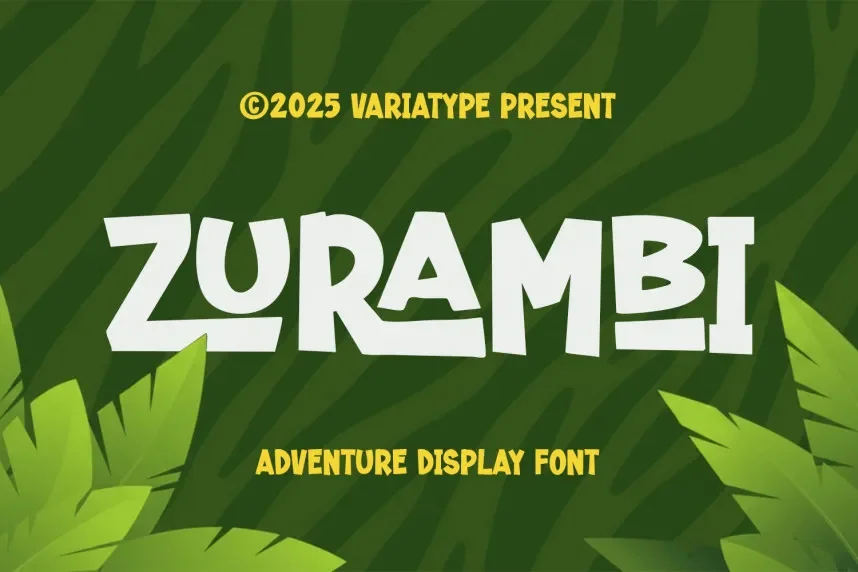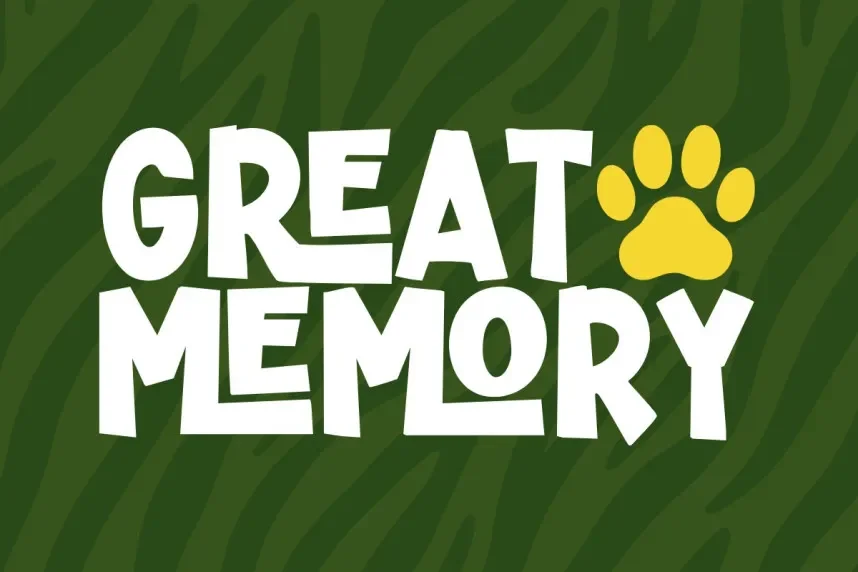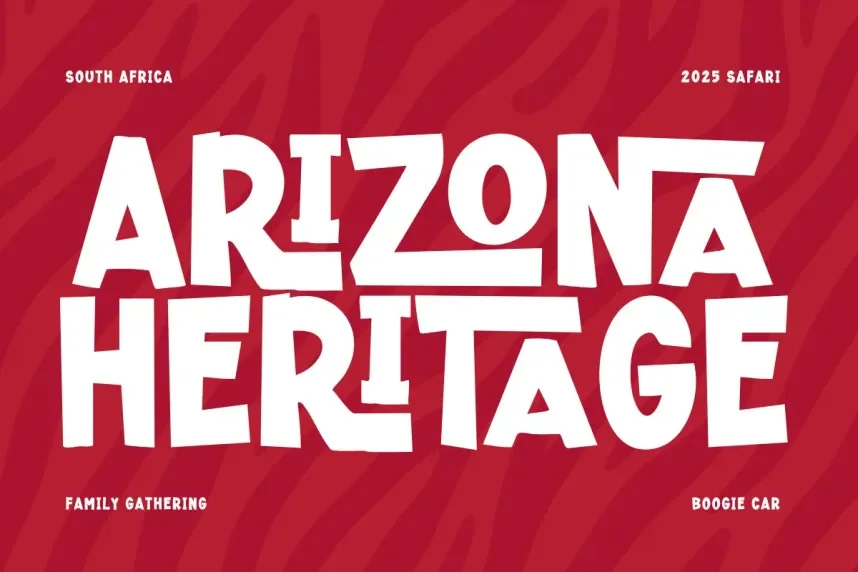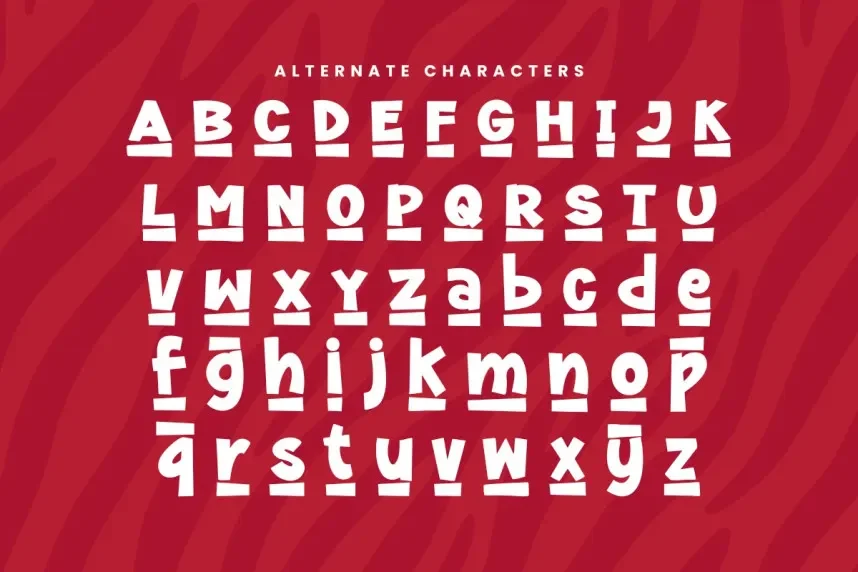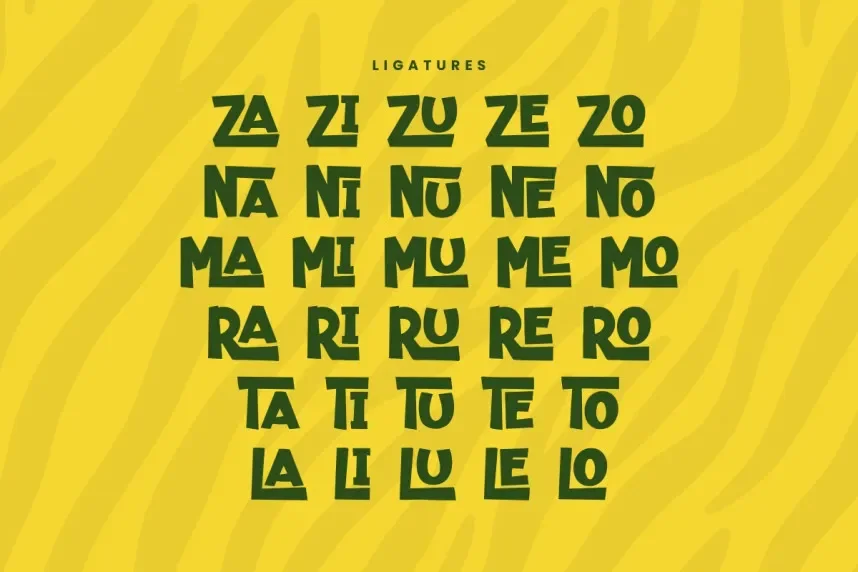
Zurambi Display Font is a unique typeface with striking, modern letterforms. Its bold design and sleek appearance make it ideal for projects that require attention-grabbing typography, such as advertising, logos, and branding.